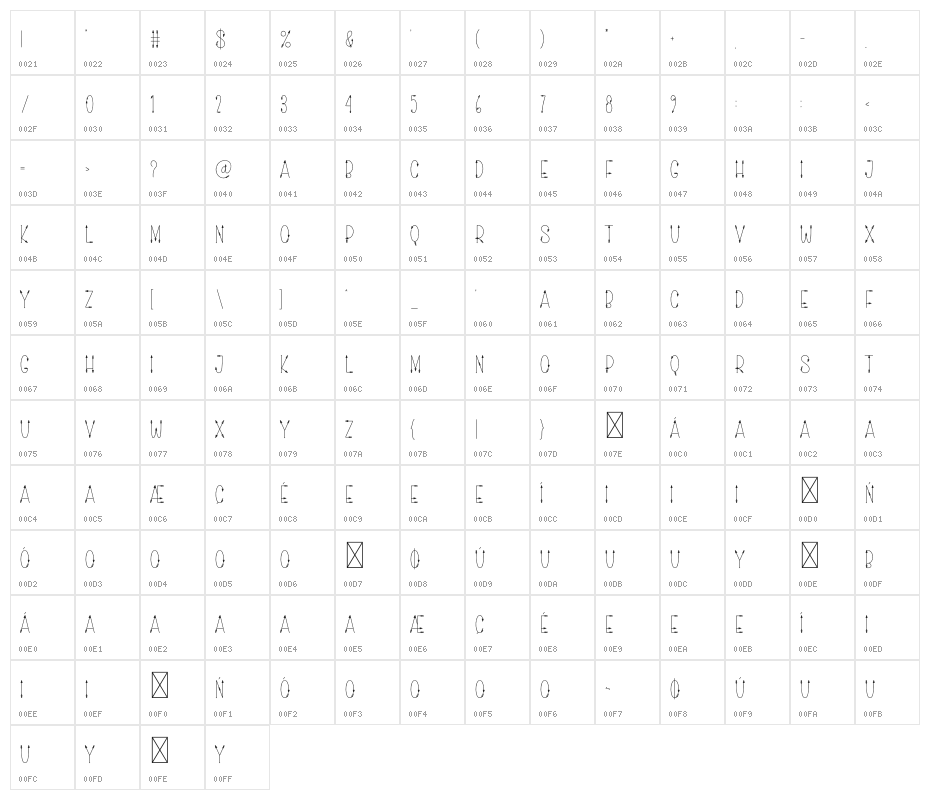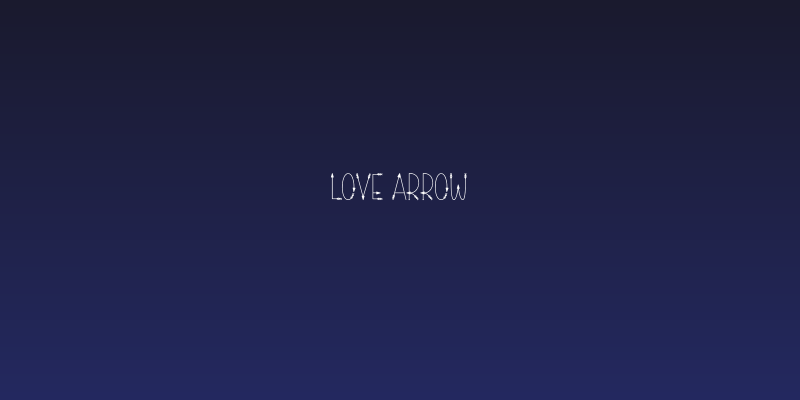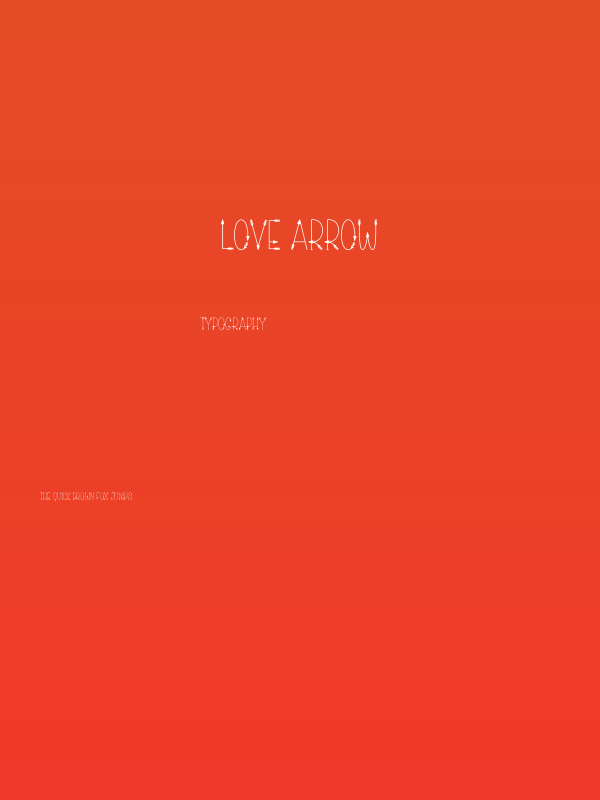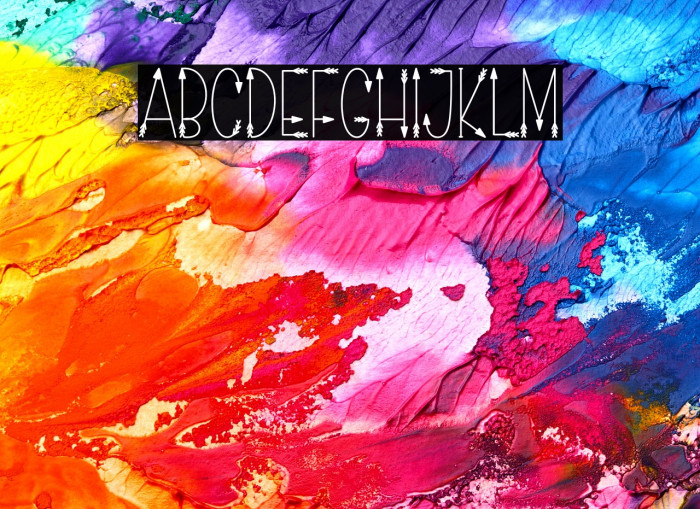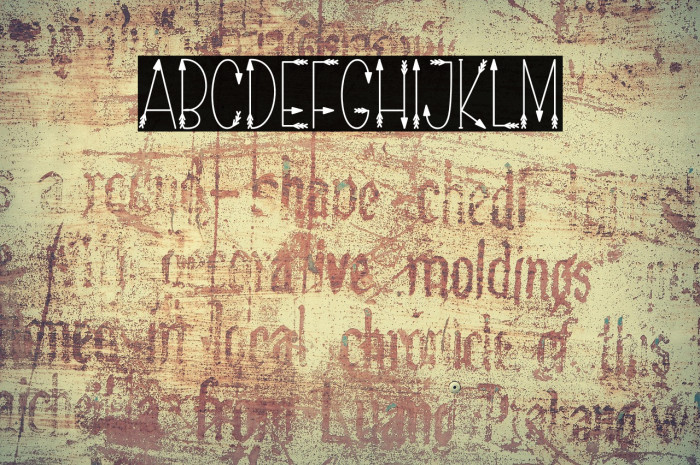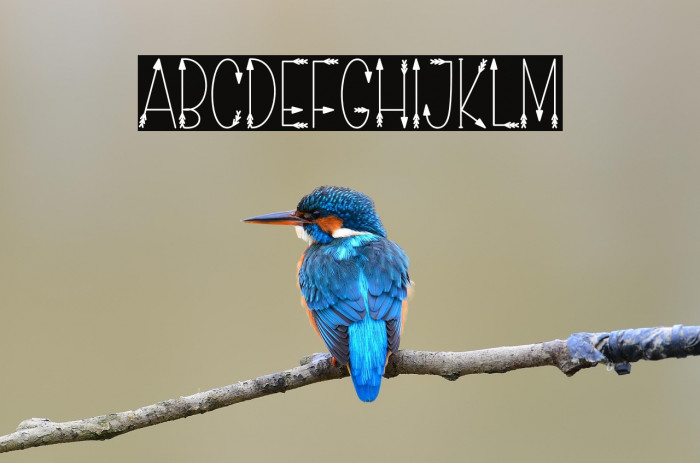
Love Arrow Font
Love Arrow Description
This decorative font features a unique design where each character is intertwined with arrow motifs, giving it a whimsical and playful appearance. The arrows are integrated into the strokes of the letters, creating a cohesive and thematic look. The uppercase and lowercase letters maintain a consistent style, with the arrows adding an element of surprise and creativity. The numbers and special characters also follow this design, ensuring uniformity across all glyphs. This font is ideal for projects that require a touch of romance or adventure, as the arrow theme suggests movement and direction.
| Proposed Projects | Ideal for wedding invitations, romantic event posters, adventure-themed graphics, and playful branding projects. |